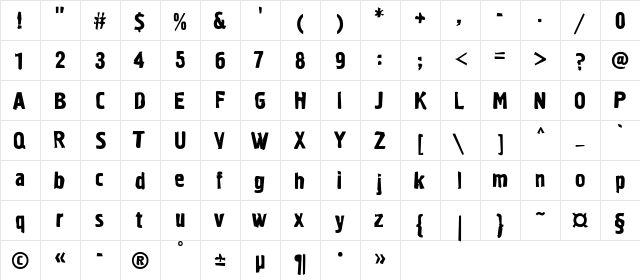
Graffiti1C Regular
Design Context for Graffiti1C Typeface
Graffiti1C offers clean, dependable letterforms without strong stylistic allegiance, making it a practical choice for designers who need flexibility.
Pro Tip: Pair Graffiti1C with a font of contrasting weight or personality to build a more expressive typographic hierarchy.